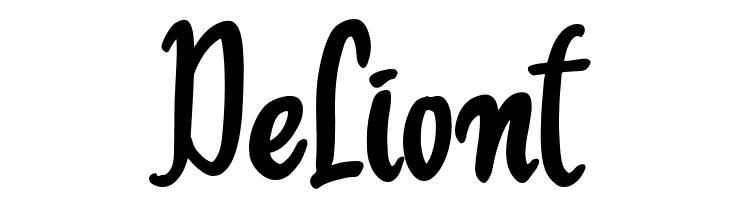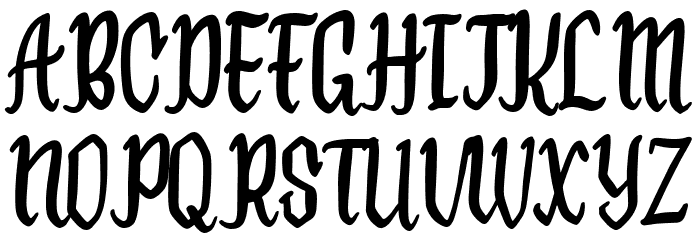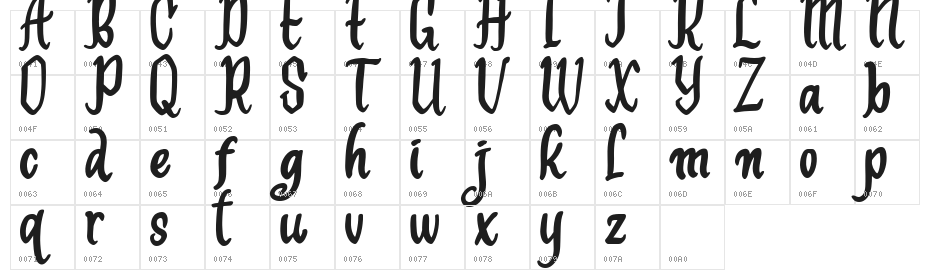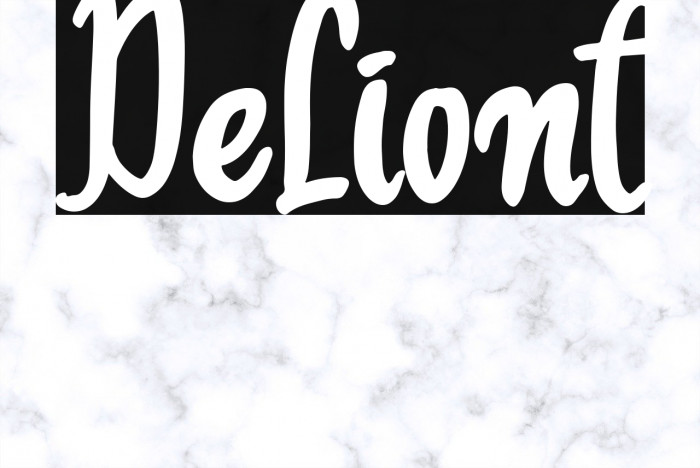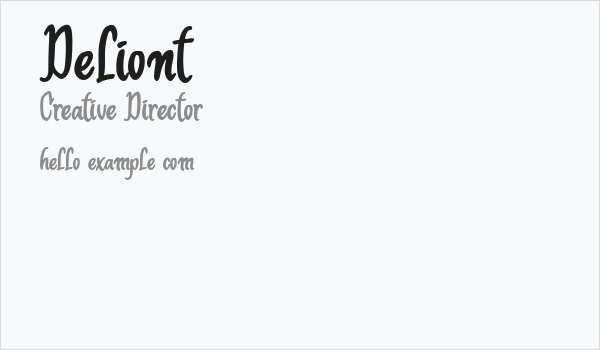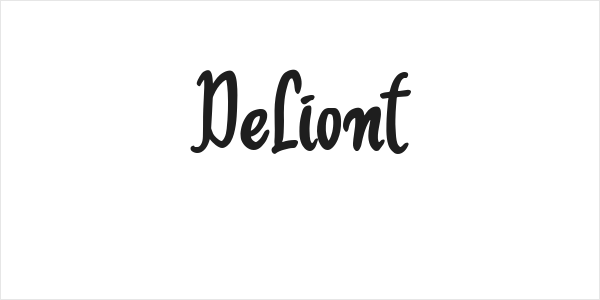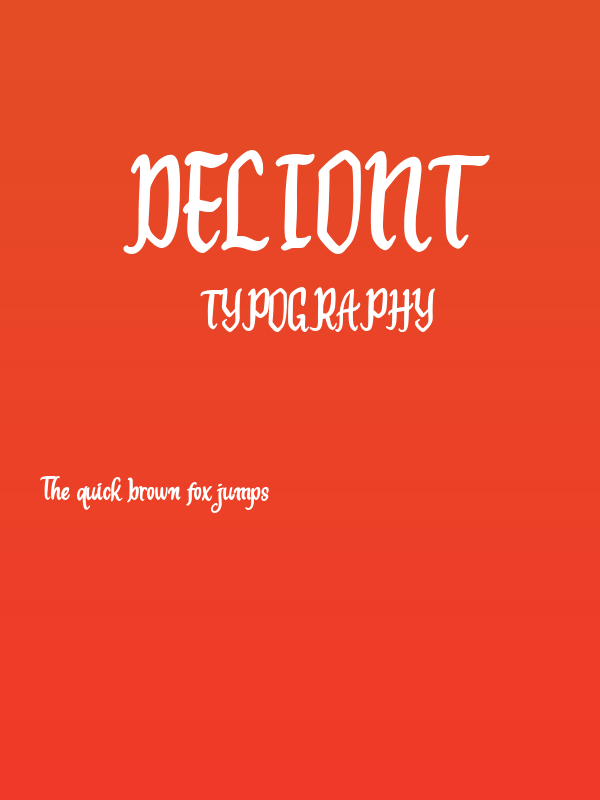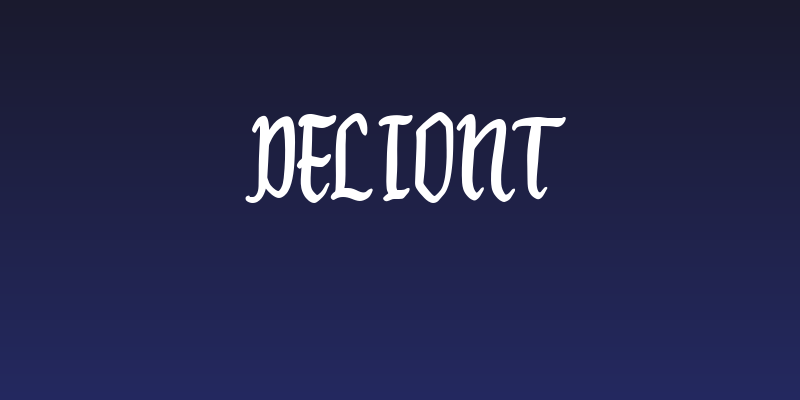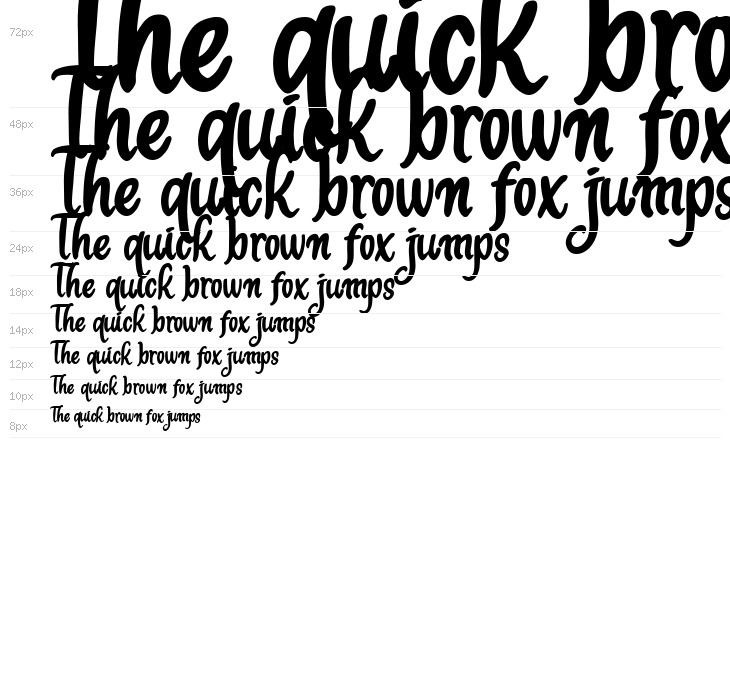
Deliont Font
Deliont Description
This font features a bold and expressive style with a handwritten appearance. The characters are designed with a flowing, cursive script that gives a sense of movement and elegance. The uppercase letters are slightly more structured, while the lowercase letters exhibit a more fluid and dynamic form. The strokes are thick and consistent, providing a strong visual impact. The font maintains a balanced contrast between thick and thin lines, enhancing its readability while preserving its artistic flair. The overall style is both modern and decorative, making it suitable for creative and expressive design projects.